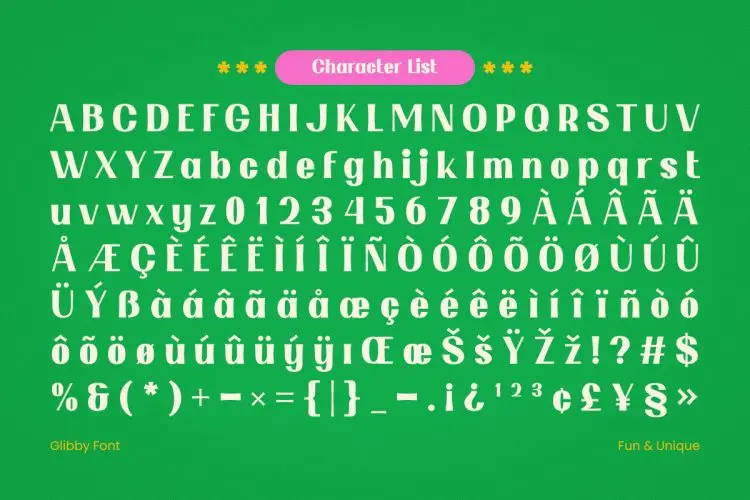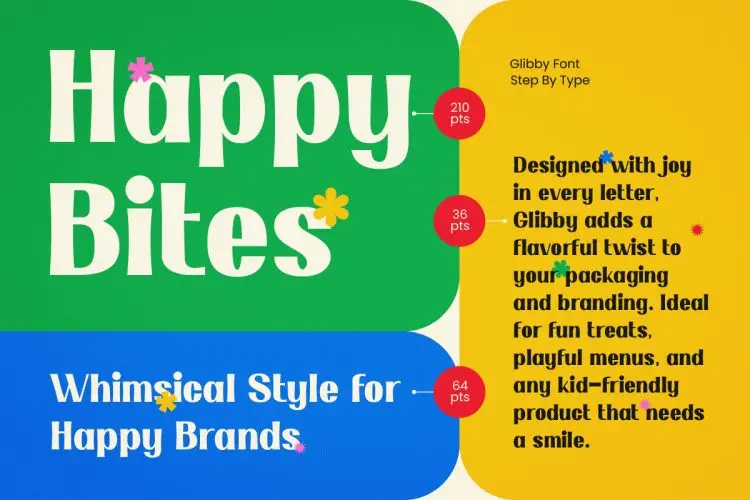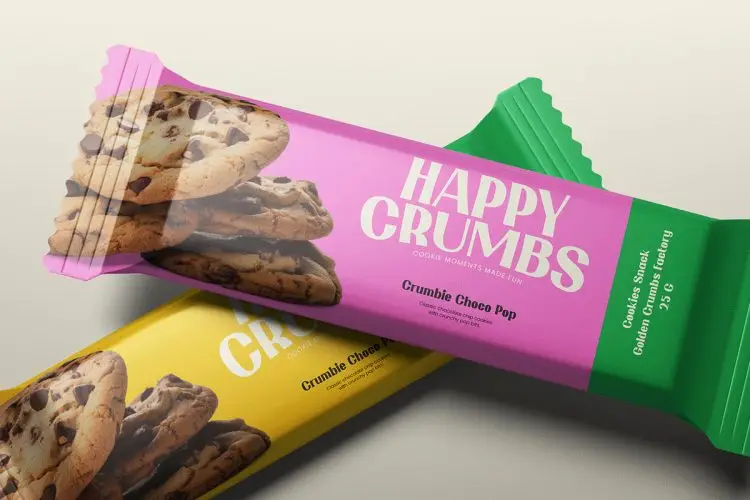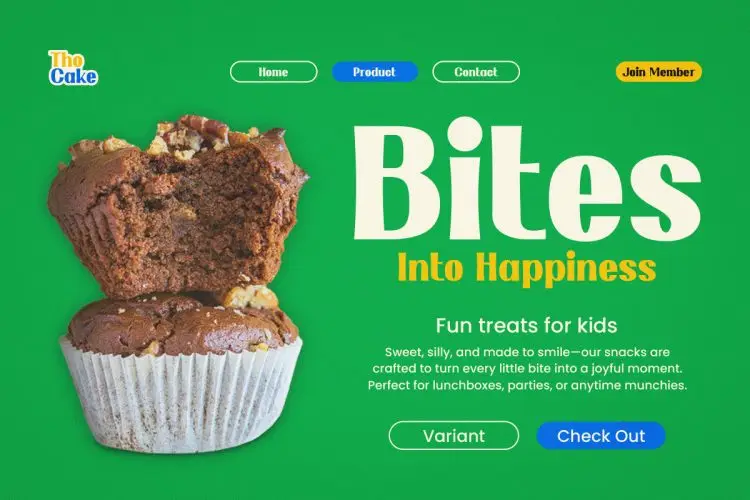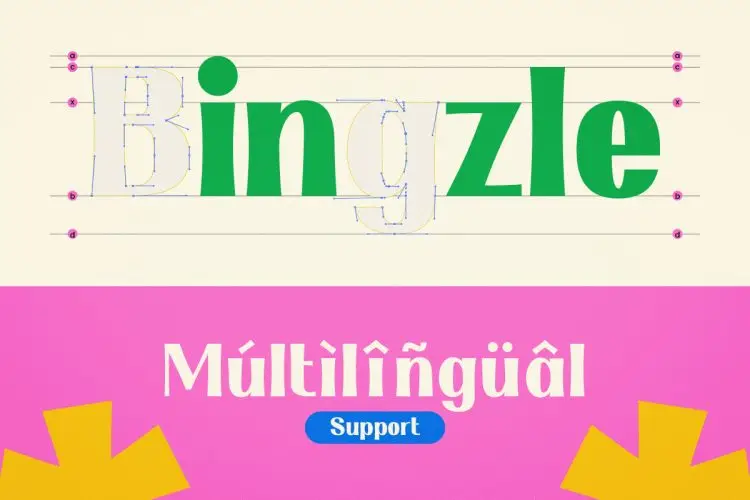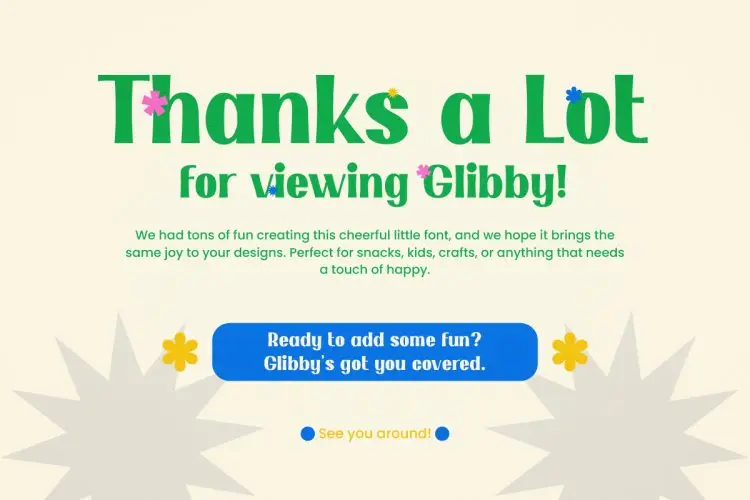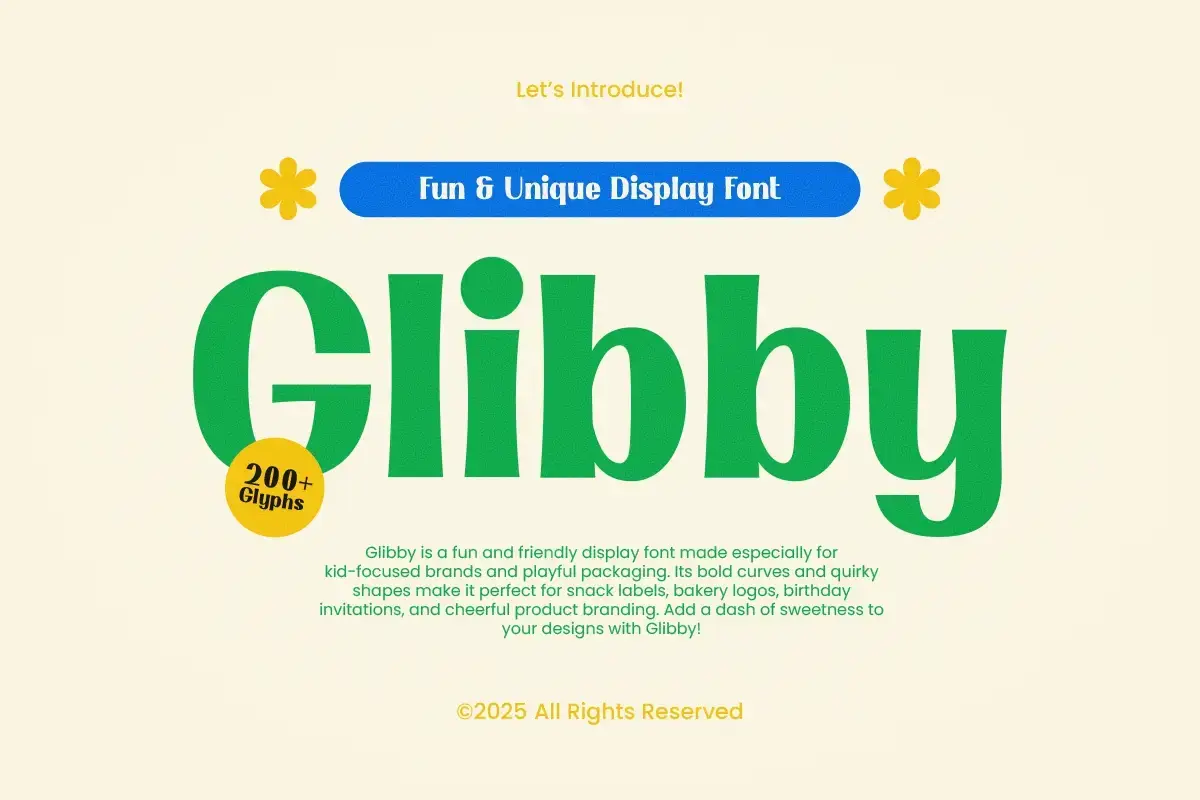
Glibby - Fun & Unique Display Font
Glibby
Glibby is a fun and unique display font designed to make any project stand out. It combines bold letterforms with quirky, handcrafted details, giving your design an energetic and joyful vibe. Perfect for branding, posters, kids’ books, social media posts, packaging, and event invitations.
• Style & Vibe: Playful, vibrant, and eye-catching
• Letterform Structure: Bold display style with rounded and organic shapes
• Intended Market: Creative entrepreneurs, kids’ brands, YouTube creators, party organizers, and lifestyle brands
• Best Uses: Logo design, packaging, advertising, social media graphics, t-shirt prints, posters, and book covers
Your design deserves more than just any font—it deserves Glibby. With its bold personality and quirky style, Glibby instantly grabs attention and turns casual viewers into engaged audiences. Whether you want to make your brand more fun or your designs more memorable, Glibby is the playful twist you need.
Why Designers Love Glibby:
• Playful & Bold – Perfect for projects that demand personality and impact
• ✏️ Handcrafted Feel – Organic shapes for a unique and friendly look
• Versatile Display Use – Works beautifully on posters, packaging, and social media
• Perfect for Branding – Makes your logo or packaging instantly recognizable
• Youthful Energy – Ideal for kids’ products, events, and colorful campaigns
Don’t let your designs blend into the crowd—make them pop with Glibby! Add this fun and unique display font to your creative toolbox today and watch your projects come alive.
Make your designs pop with Glibby, a fun and energetic display font perfect for logos, packaging, and colorful campaigns.